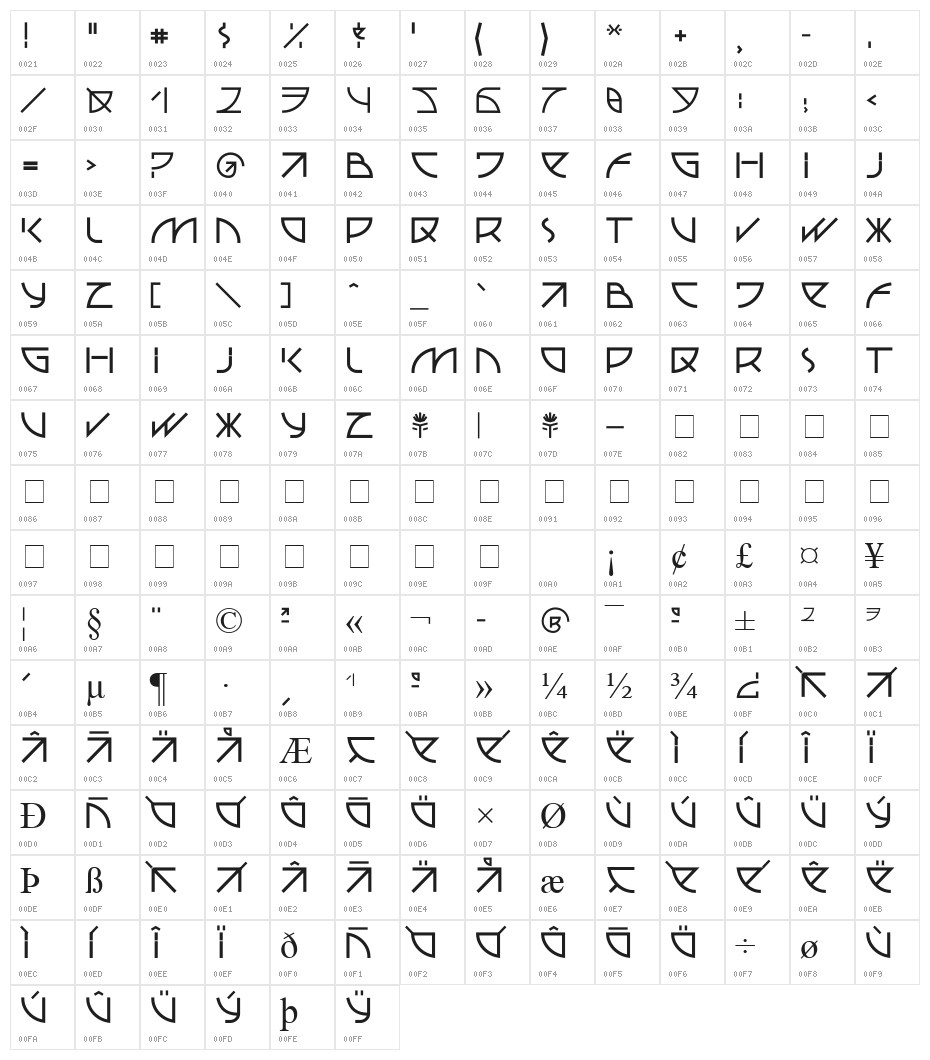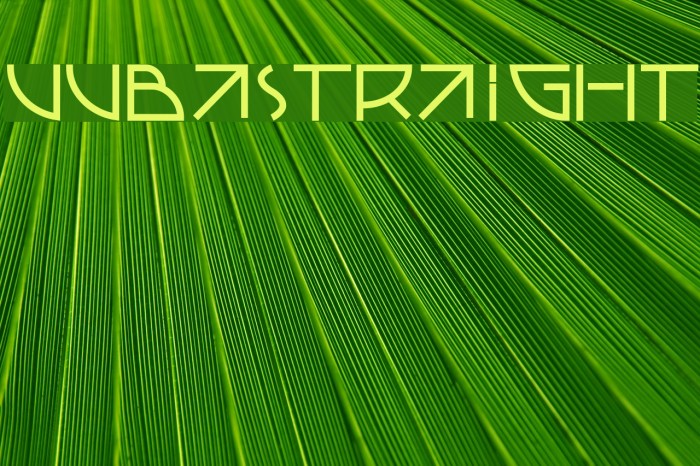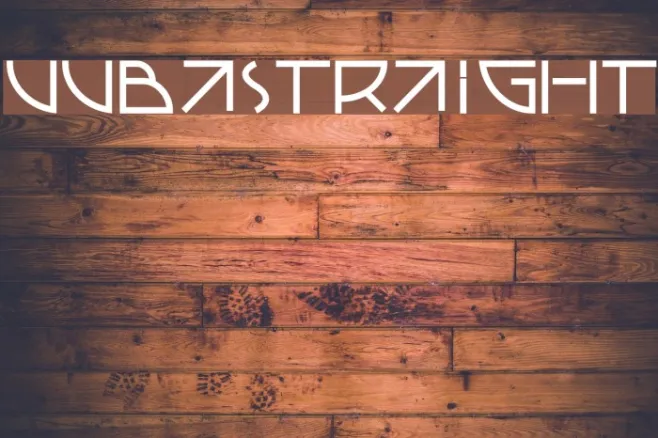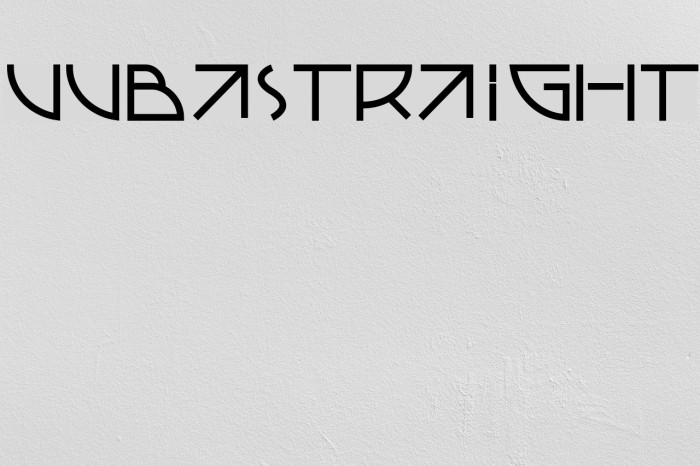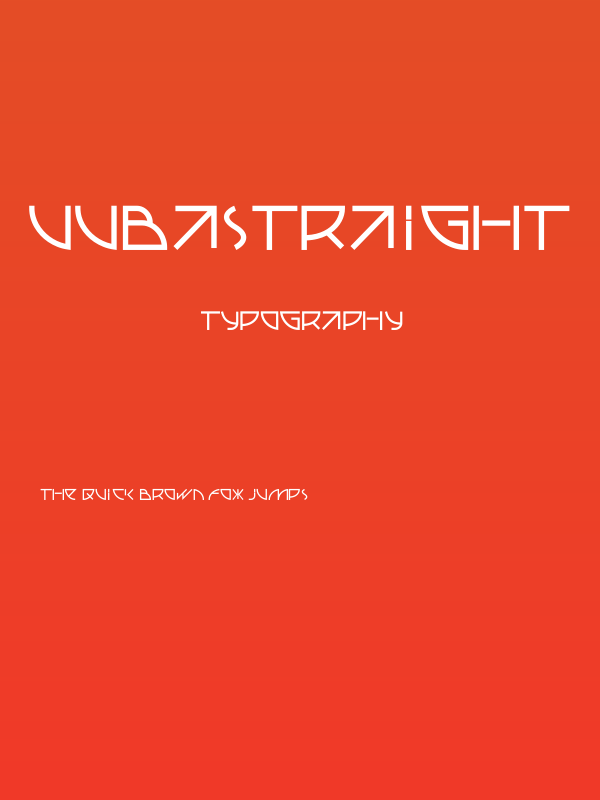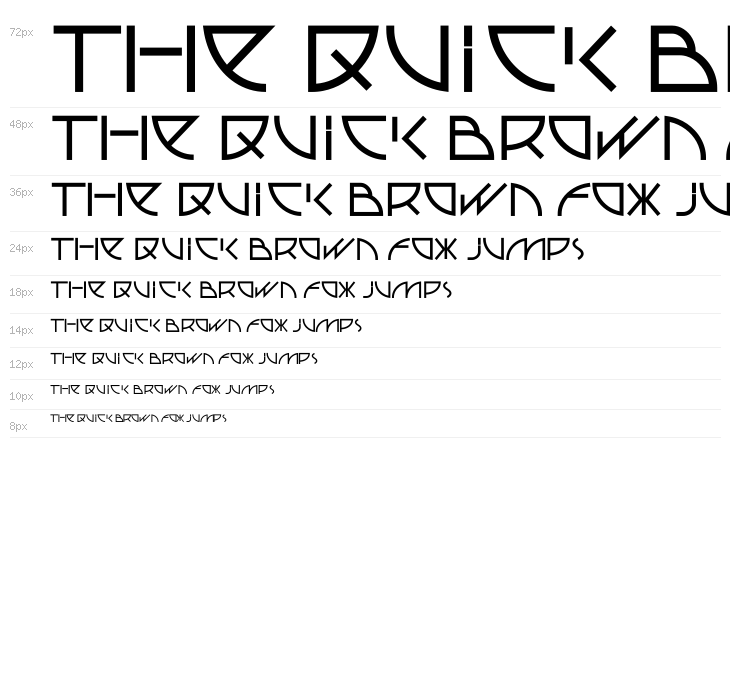
UUBAStraight Font
UUBAStraight Description
This font features a modern and geometric design with sharp angles and clean lines, creating a futuristic and sleek appearance. The characters are constructed with a consistent stroke width, contributing to a uniform and cohesive look. The uppercase letters exhibit a distinctive angular style, while the lowercase letters maintain a similar geometric form. The numerals and special characters are designed to match the overall aesthetic, ensuring visual harmony across all elements. This font's unique style makes it suitable for projects that require a contemporary and cutting-edge feel.
| Proposed Projects | Ideal for technology branding, futuristic posters, modern logos, and digital interfaces. |